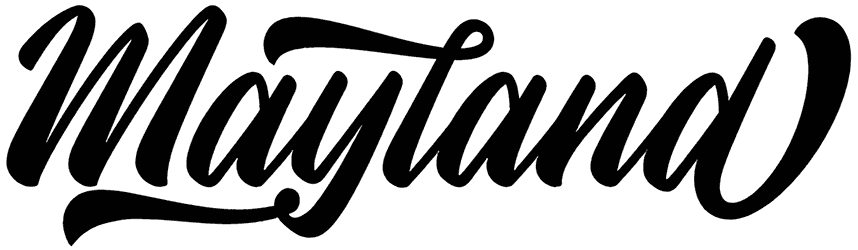
Mayland Font
If you want to perk up your design with a stylish, eye-catching surf font and modern touch, we suppose Mayland will be an excellent choice. It can apply a sweet, pleasing view that promotes any project to a higher level. You can try this enchanting font for movie posters, T-shirt prints, storefront signs, personalized jewelry like necklaces with names, and product packaging.